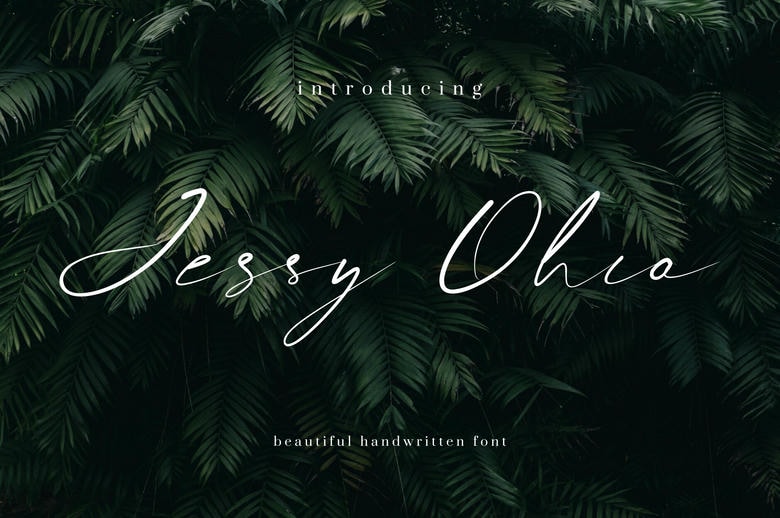
Jessy Ohio Font
Jessy Ohio is a charming handwritten font with a classic feel. It’s a great option for eye-catching logos, branding, and quotes. Each letter has its own special style, helping your designs stand out.
Jessy Ohio Handwritten Script Font